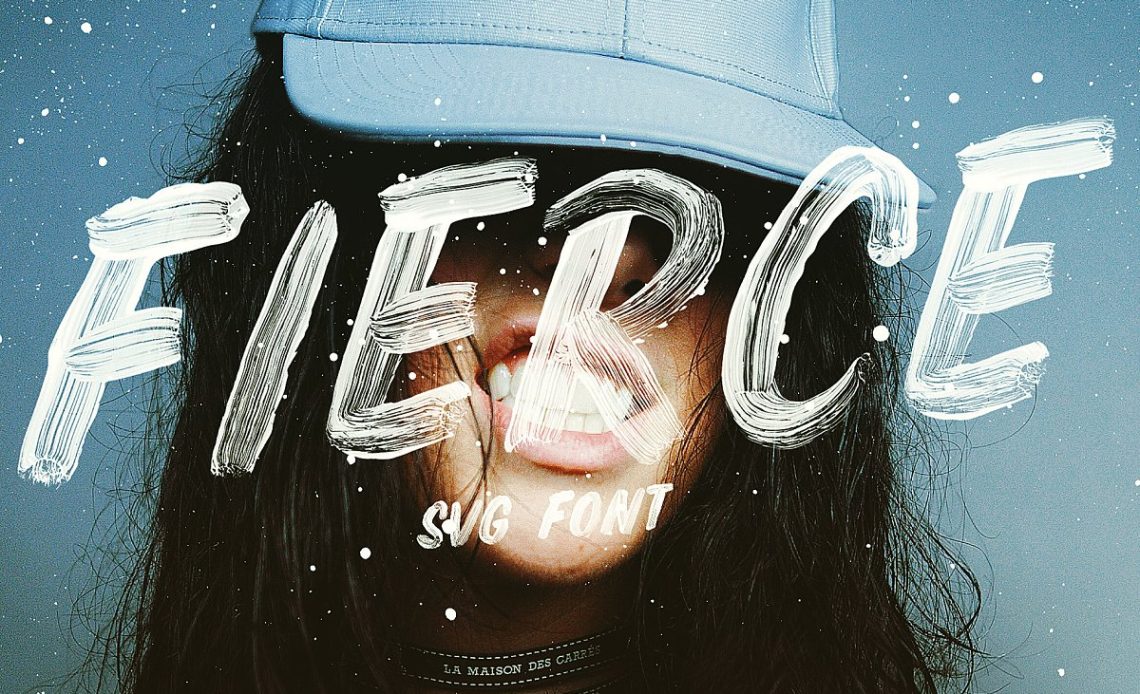
Are you in search of a bold and brash font that will elevate your designs to new heights? Look no further than Display Font Fierce, created by the talented Simon Stratford. This brush script font is unlike anything you've ever seen before, thanks to its unique creation process. Painted with acrylics on transparency film, each stroke is visible and gives the font a level of detail that traditional vector typefaces simply can't match.
Fierce is the best font for small display designs and it is perfect for posters, packaging, advertising, headlines, branding, signage and anything that requires an urban look and feel. Its punk attitude is sure to make a statement and grab your audience's attention. If Fierce were a band, it would be more like The Ramones than Rebecca Black - shouty, fun, and full of energy!
In summary, Display Font Fierce is a one-of-a-kind font that is sure to elevate your designs to the next level. With its punk attitude, unique creation process, and extra grunge options, it's perfect for anyone looking to make a statement and stand out from the crowd.